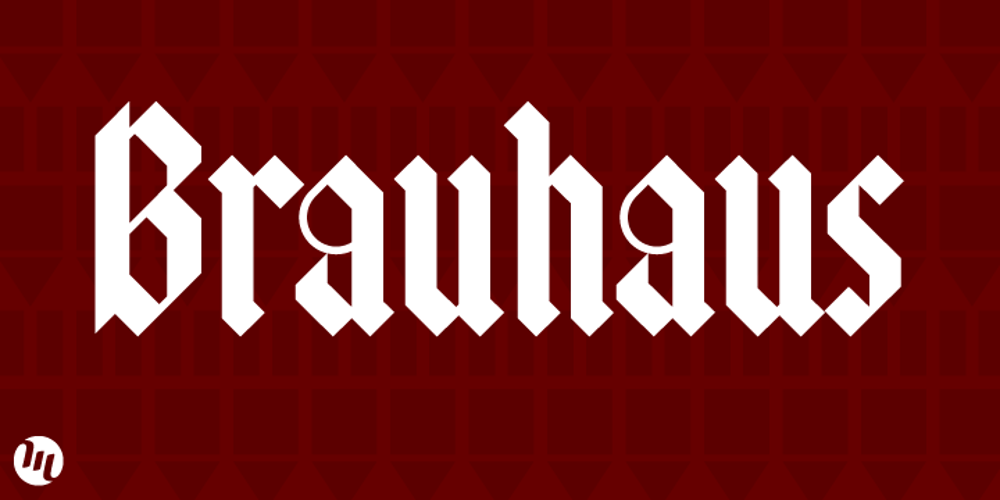
Brauhaus Font Family was designed by Matthew Aaron Desmond and published by MADType. Brauhaus contains 3 styles and family package options. I enjoy and am inspired by many blackletter designs, but find that their uppercase characters are generally too complex to be very usable. I also found that very few, if any were designed with perfect 45 degree angles. I set out to design a textura blackletter with unique features and a usable uppercase. What resulted is an interesting, yet usable, geometric design with unusual features that make it stand out from existing texturas.